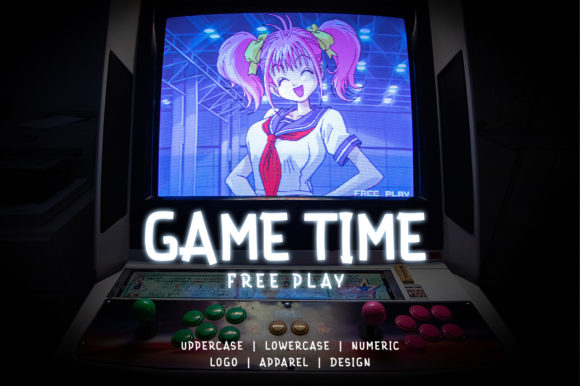
Introduction to Izzul Game Font
Have you ever been stuck in a creative rut, staring at a blank canvas, and desperately seeking the perfect font to bring your vision to life? For designers, this is a familiar scenario. But what if you could unlock a font that perfectly captures the essence of your project, elevating it from ordinary to extraordinary? Enter Izzul Game Font, a unique display font that’s about to revolutionize your design process.
Izzul Game Font is more than just a design resource – it’s a game-changer. With its sleek, modern design and transparent background, this font is ideal for games, logos, headlines, covers, and so much more. Whether you’re working on a high-profile project or a personal creative endeavor, Izzul Game Font is the perfect companion to help you achieve your design goals.
Key Features of Izzul Game Font
- High-quality design resource for creative projects, ideal for game development, and other interactive applications.
- Includes a range of font styles and sizes, ensuring versatility for different creative projects.
- Perfect for use in digital games, animations, and other interactive media, where a high-quality font is essential for an engaging user experience.
Honest Review: Izzul Game Font
I recently had the chance to work with Izzul Game Font, a free design resource that’s perfect for any creative project. One of the first things that caught my attention was the font’s unique style, which immediately adds a touch of personality to any design.
Here are some things that work well with Izzul Game Font:
- ✨ High-quality design that’s perfect for a variety of creative projects
- ✨ Transparent background, making it easy to overlay on different images
- ⚠️ Limited character set, which may not be suitable for longer blocks of text
- ⚠️ Not ideal for designs that require a lot of customization
Overall, Izzul Game Font is a solid choice for designers who need a high-quality, unique font for their creative project. While it may not be suitable for every design need, it’s definitely worth considering for the right project.
Use the Izzul Game Font on a transparent background to create a unique and eye-catching design. Experiment with different font sizes and colors to add visual interest to your project. You can also use the font in combination with other design elements, such as images and graphics, to create a cohesive look.
The Izzul Game Font is perfect for use in game design, graphic design, and digital art projects. It can also be used in presentations, reports, and other documents where a high-quality font is required.